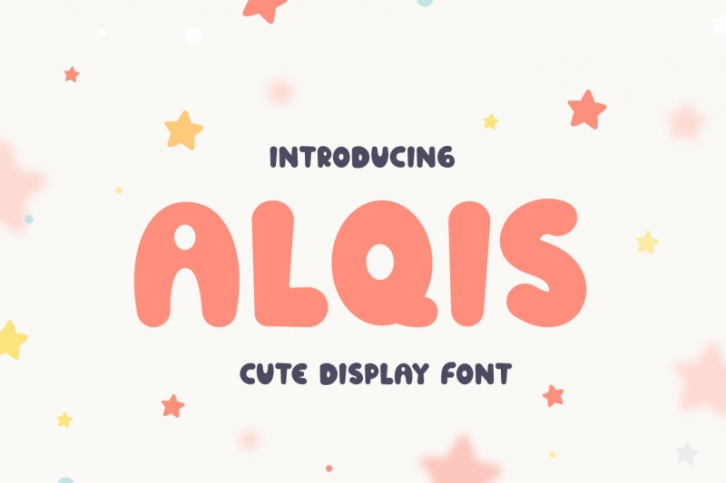
Alqis - Cute Display Font
Alqis is a cute and quirky display font that fits perfectly into anything. Its casual charm makes it look very down to earth, easy to read and, in the end, very versatile. Alqis will look amazing in any context, whether used in a busy background or as a standalone headline!